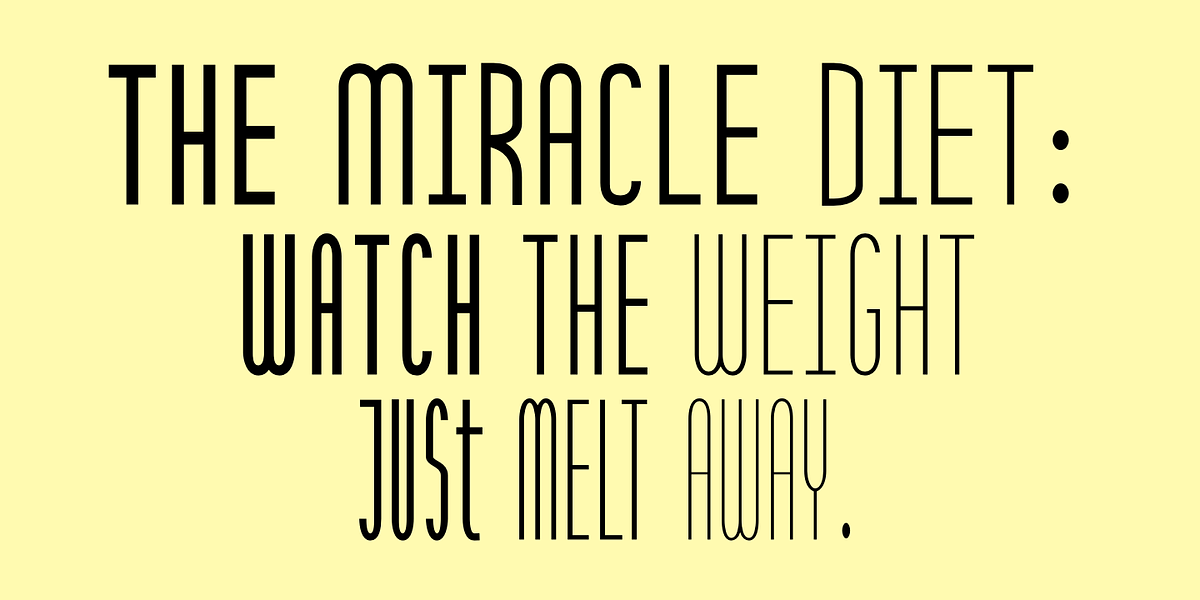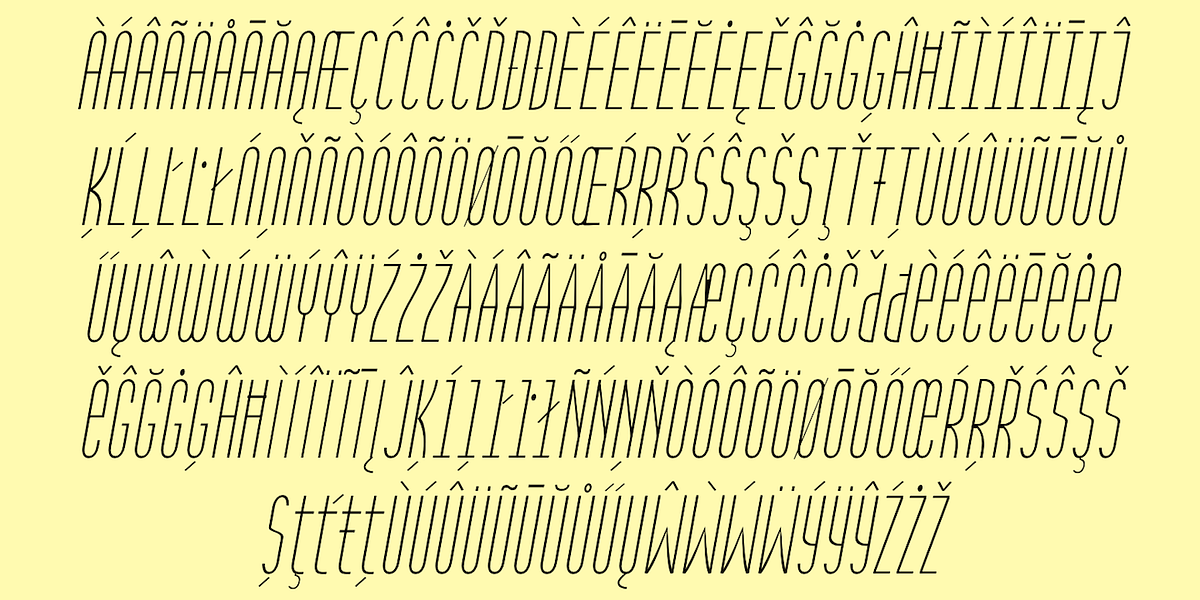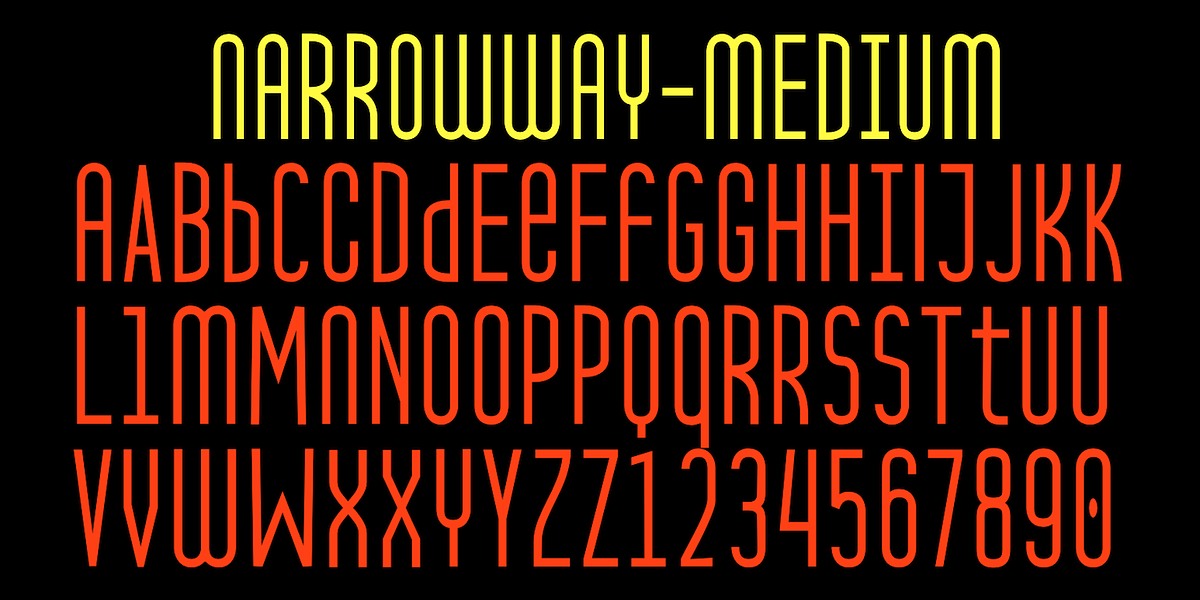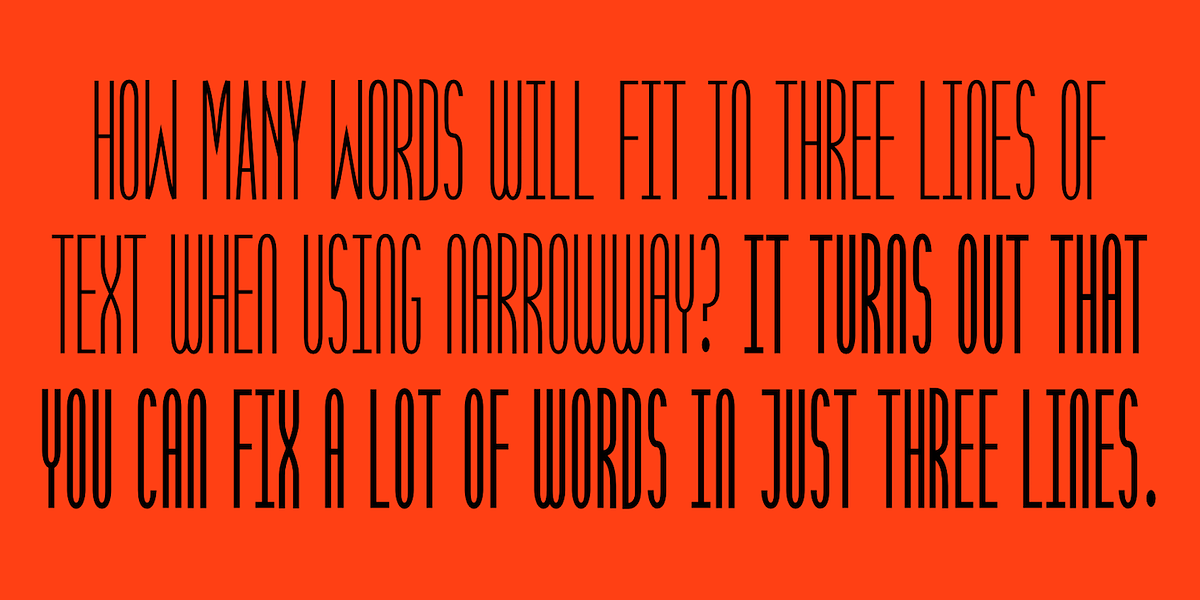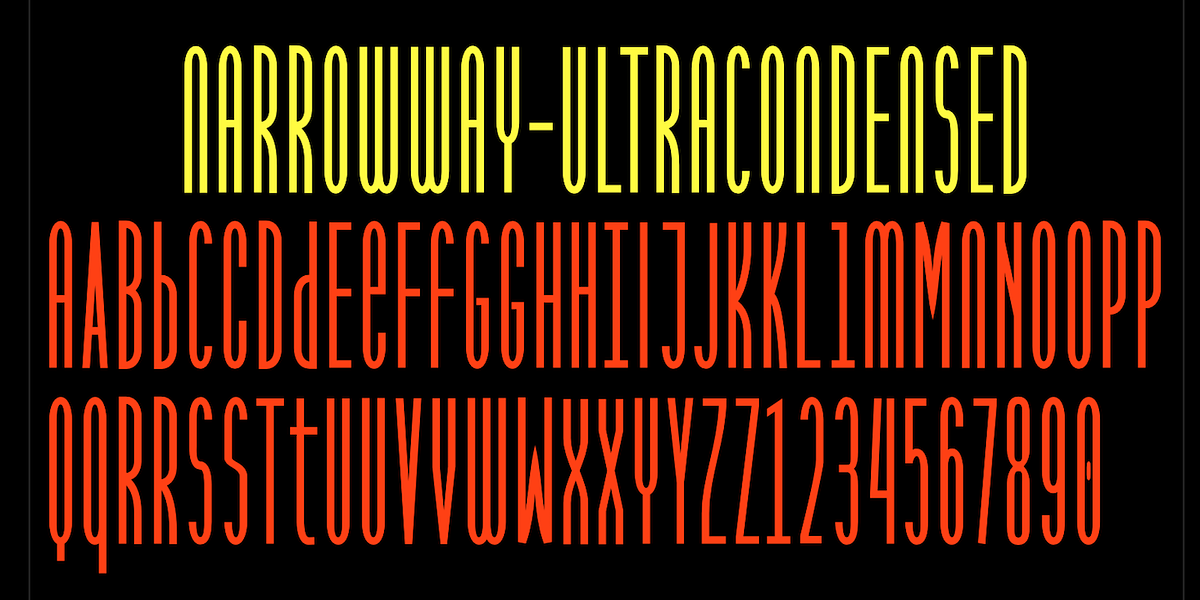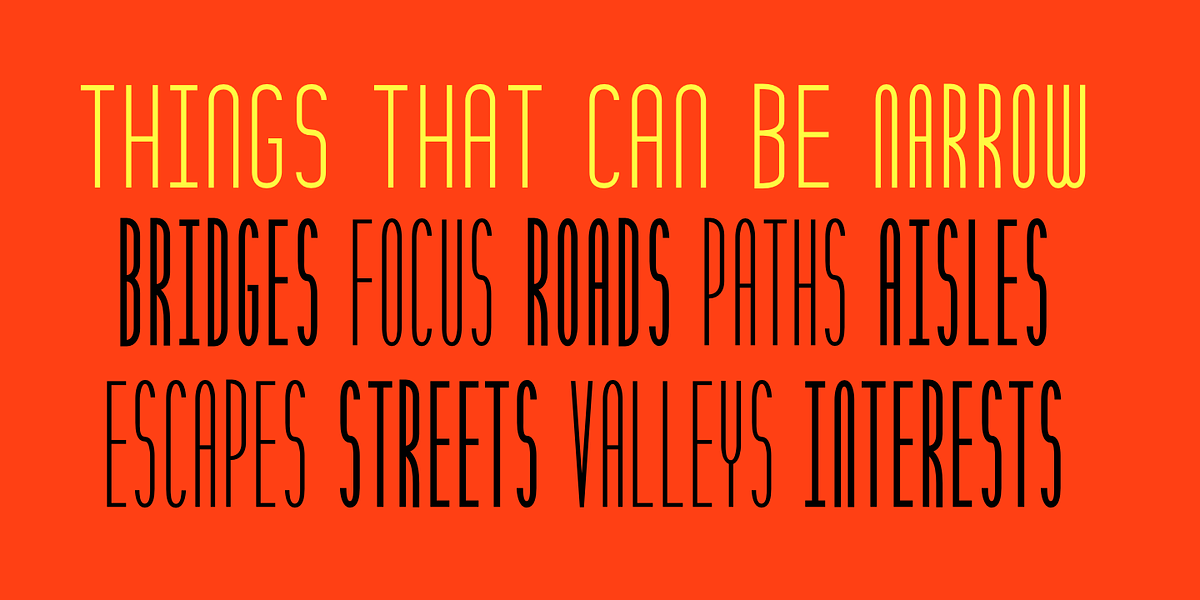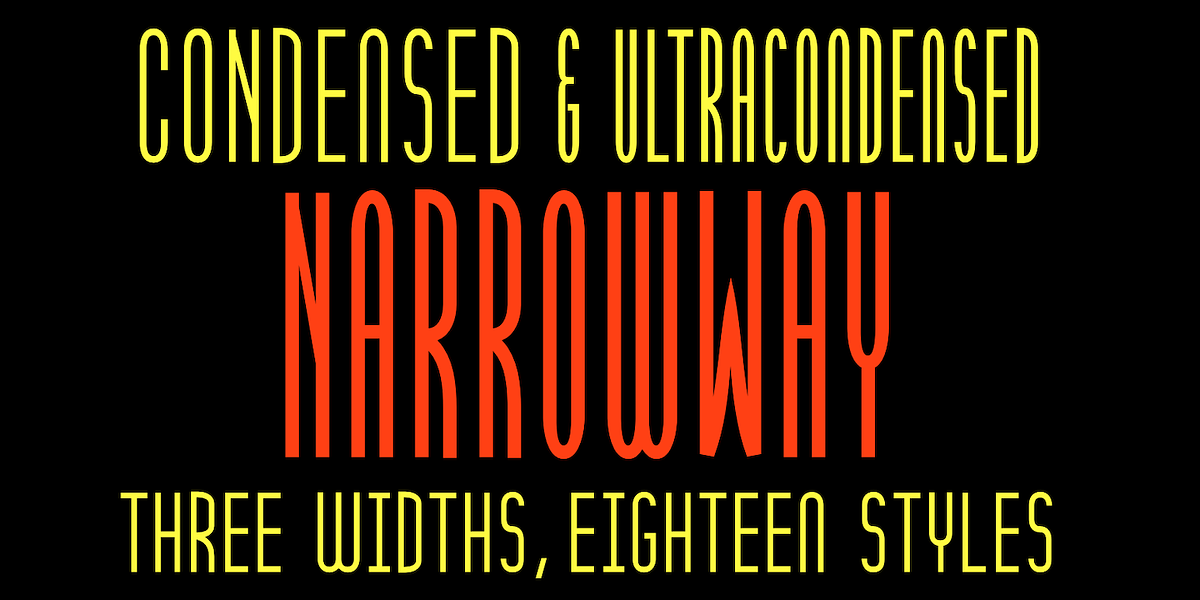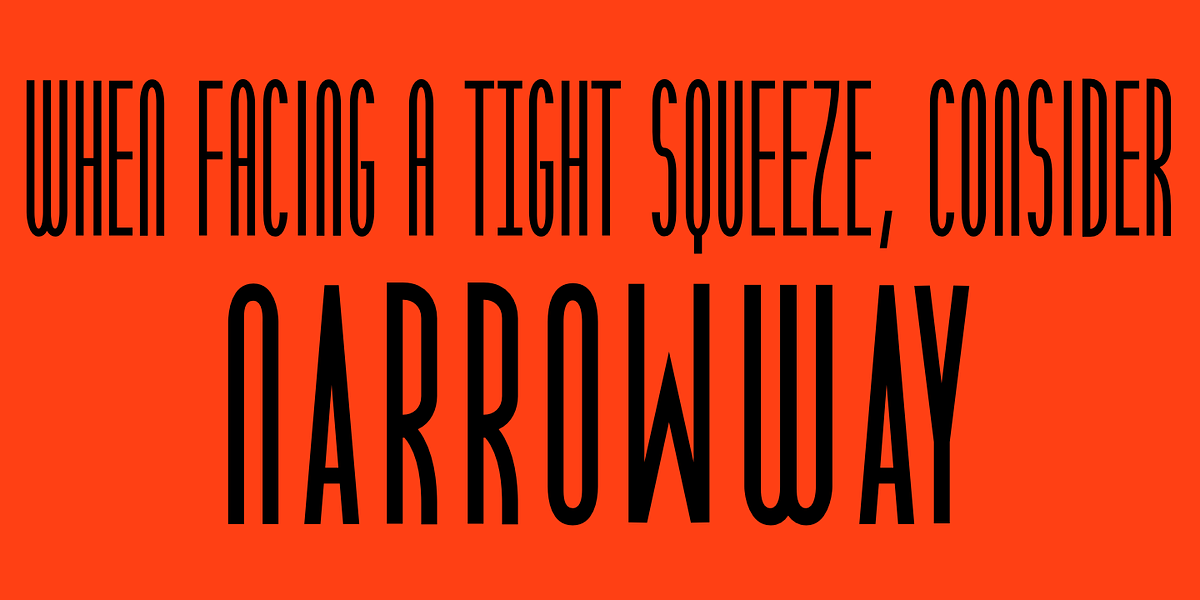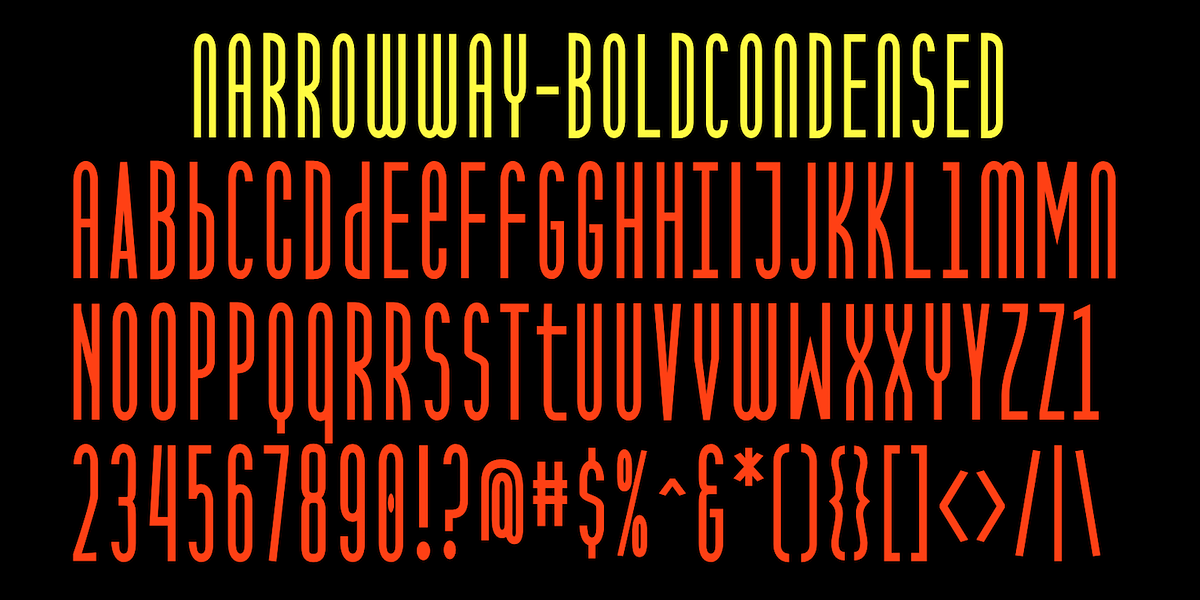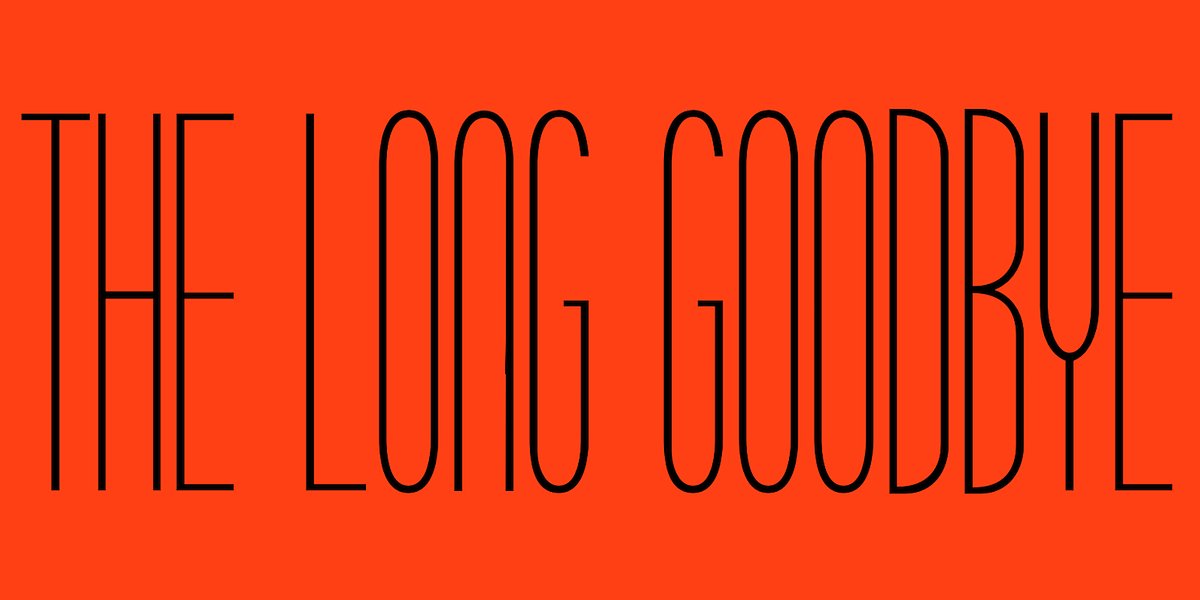
NarrowWay
NarrowWay is a condensed sans-serif typeface family designed for display purposes. It features 18 styles across three weights (thin, regular, bold) and italics, with both condensed and ultra-condensed widths. Notably, it lacks lowercase letters in the traditional sense but offers alternative characters accessible through stylistic sets. The loose character spacing can be adjusted for tighter layouts if needed. Due to its condensed nature, NarrowWay is well-suited for fitting tall lettering into limited spaces but is not recommended for small point sizes.